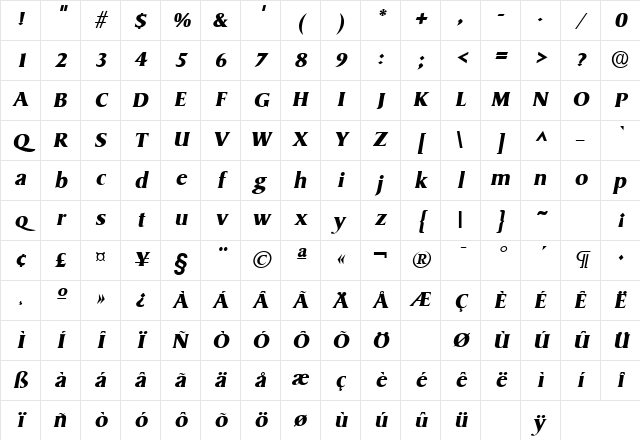
Sydney Bold Italic
Sydney Family
Design Context for Sydney
Sydney is a composed and adaptable typeface that performs quietly and consistently across a wide range of design contexts. The slanted form adds forward momentum and visual energy. Its bold stroke weight gives it real presence on the page.